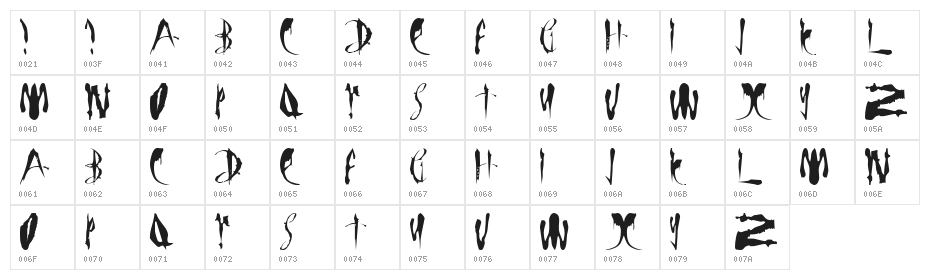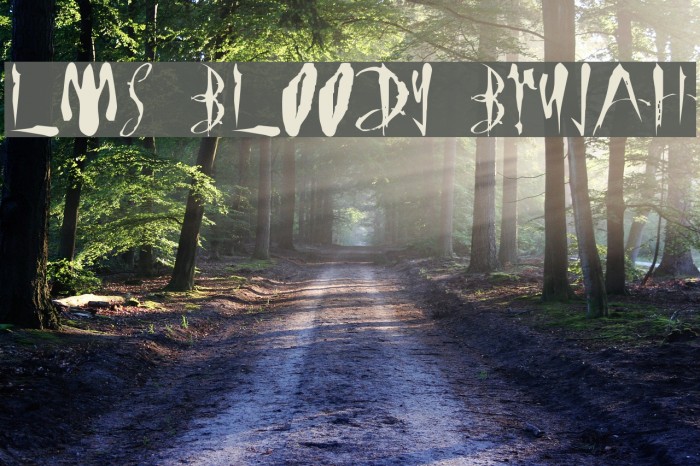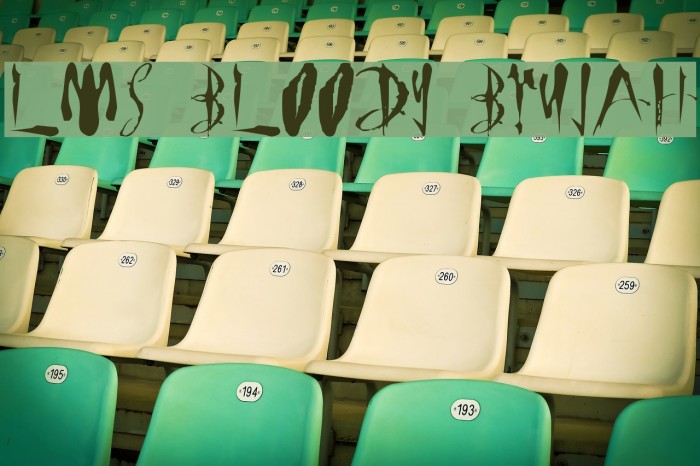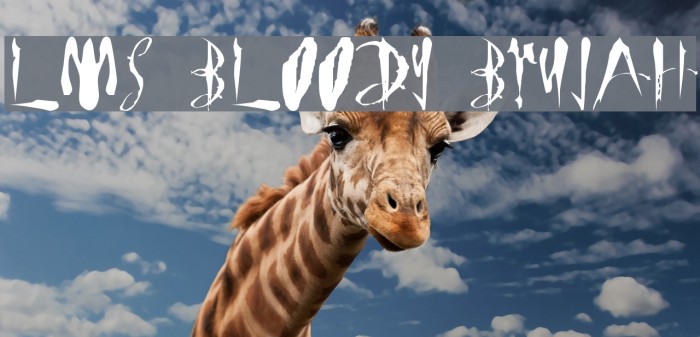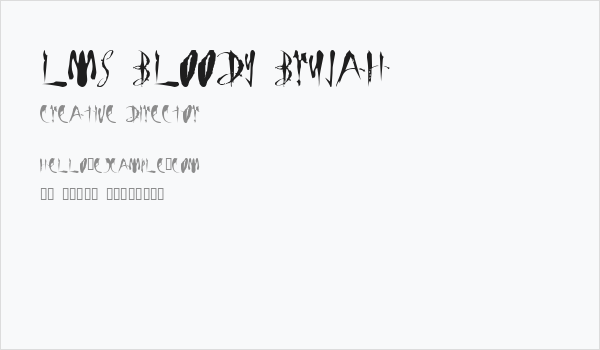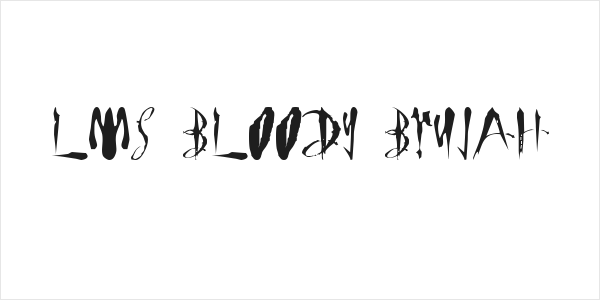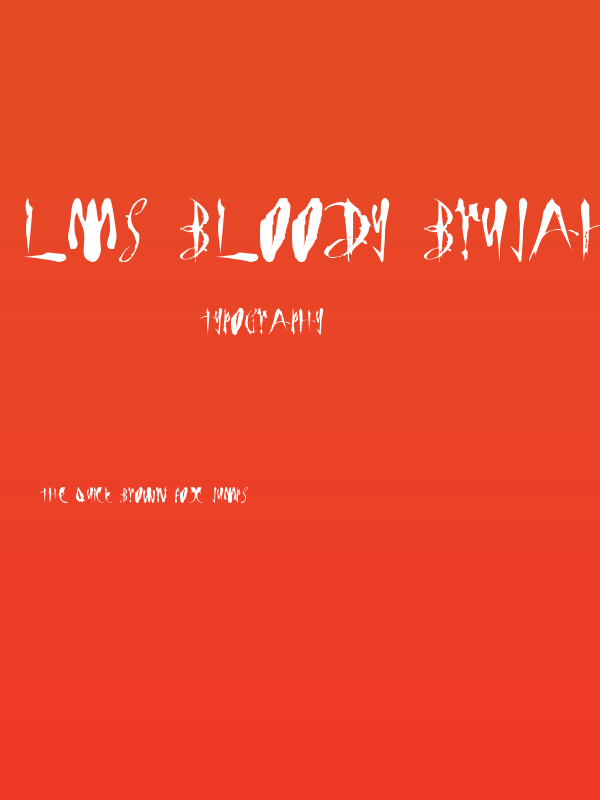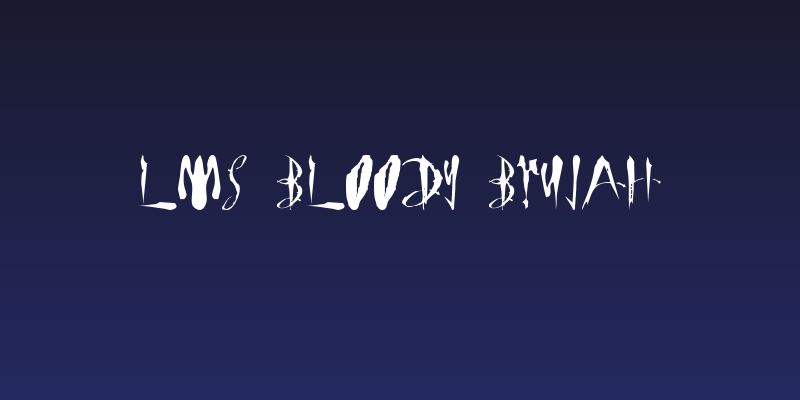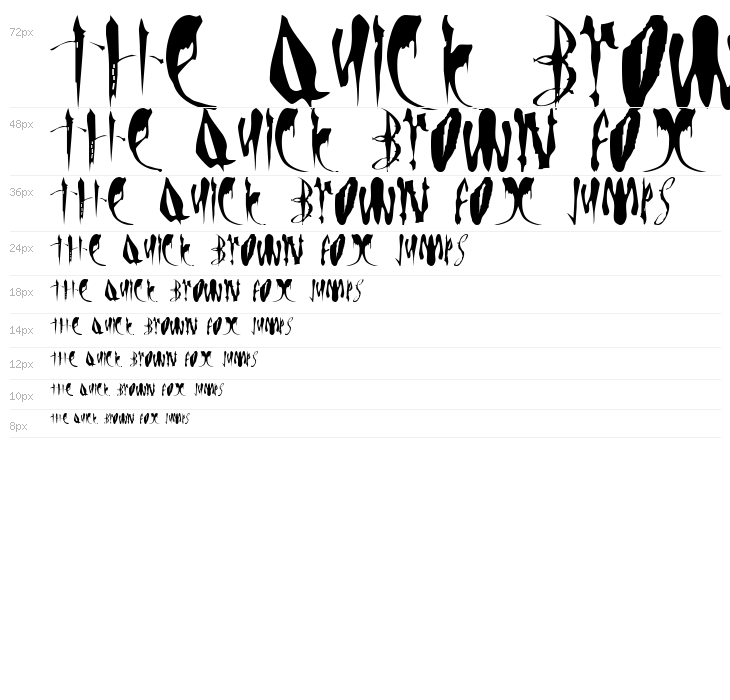
LMS Bloody Brujah Font
LMS Bloody Brujah Description
This font exudes a dark, gothic aesthetic with its sharp, jagged edges and dramatic strokes. The uppercase letters are particularly striking, featuring elongated serifs and a distressed appearance that suggests a hand-drawn, almost calligraphic style. The lowercase letters maintain this theme, with a slightly more restrained design that complements the uppercase characters. The overall look is both chaotic and artistic, making it ideal for projects that require a bold, unconventional typeface. The font's unique style is reminiscent of horror or fantasy themes, perfect for creating an eerie or mysterious atmosphere.
| Overall Style | Gothic, Artistic |
| Proposed Projects | Ideal for horror-themed posters, fantasy book covers, or gothic event invitations. |